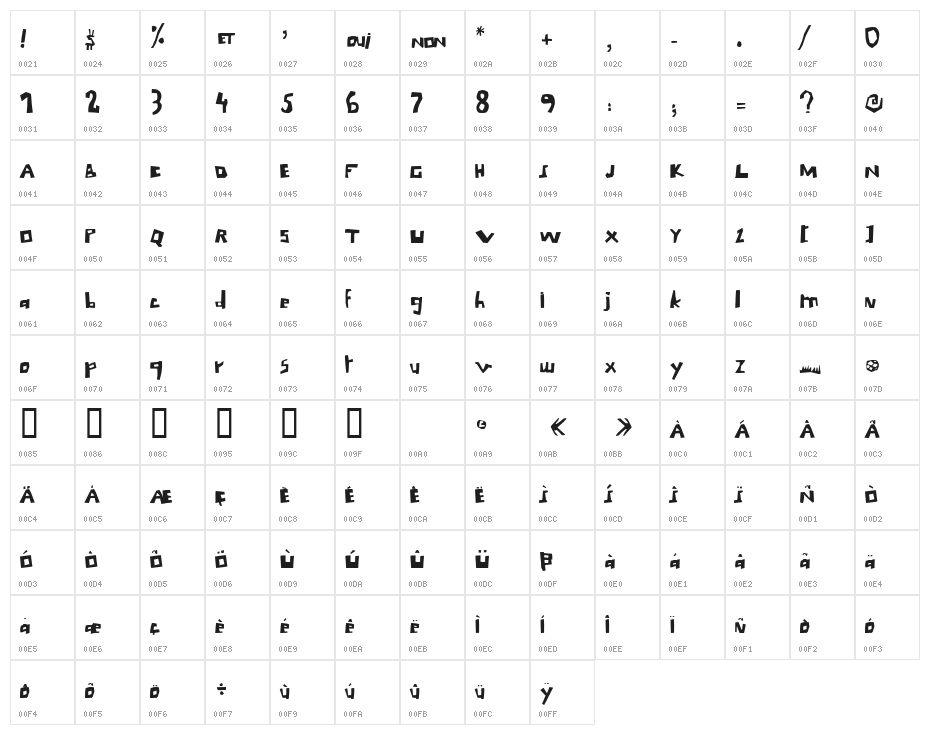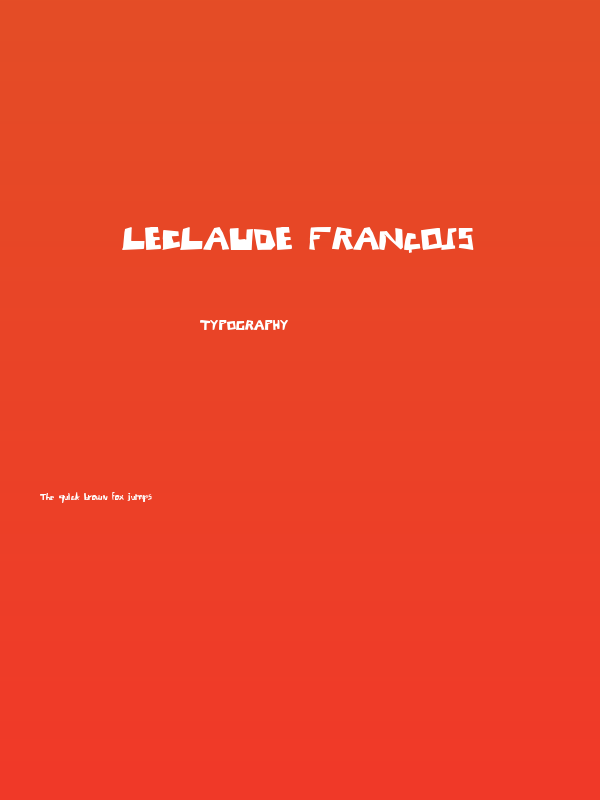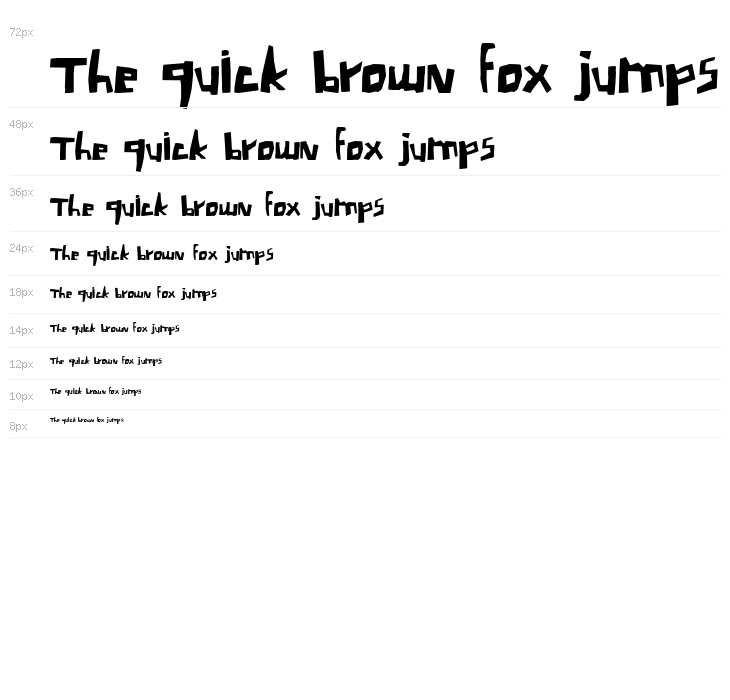
Leclaude François Font
Leclaude François Description
This font features a bold and dynamic style with a distinctly angular and geometric design. The characters are crafted with sharp edges and varying stroke widths, giving it a unique and edgy appearance. The uppercase letters are particularly striking, with a strong presence that commands attention. The lowercase letters maintain the same angular theme, providing consistency across the typeface. Numbers and special characters are equally bold, ensuring readability and visual impact. This font is ideal for projects that require a modern and unconventional look.
| Proposed Projects | Perfect for posters, album covers, branding, and any creative project needing a bold statement. |